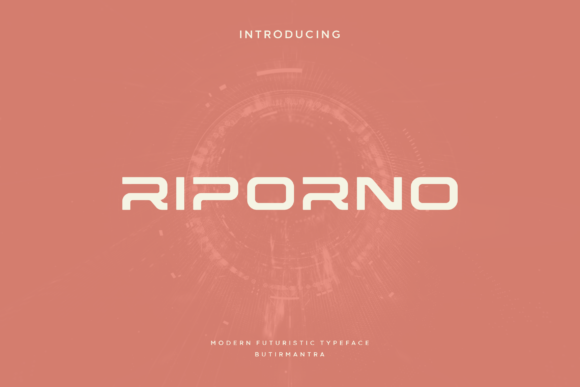
Riporno Font: A Modern Futuristic Typeface for Hi-Tech Logos and More
In the world of typography, fonts play a crucial role in conveying the tone and personality of a brand or design. With the ever-evolving digital landscape, designers are constantly on the lookout for modern and futuristic fonts that can help their creations stand out. One such font that has gained significant attention in recent times is the Riporno Font. In this article, we’ll delve into the features, benefits, and uses of Riporno, a font that is perfect for creating hi-tech logos, science-fiction movie posters, and more.
What is Riporno Font?
Riporno Font is a modern, futuristic typeface designed to cater to the needs of designers looking for a sleek and cutting-edge font. Its unique design elements make it an ideal choice for creating hi-tech logos, science-fiction movie posters, banners, social media graphics, flyers, and more. The font’s futuristic look and feel make it perfect for brands and designs that want to convey a sense of innovation and forward-thinking.
Key Features of Riporno Font
- Modern and Futuristic Design: Riporno Font boasts a sleek and modern design that is perfect for creating futuristic and hi-tech logos.
- Highly Versatile: The font is suitable for a wide range of applications, including science-fiction movie posters, banners, social media graphics, flyers, and more.
- Easy to Read: Despite its futuristic design, Riporno Font is highly legible, making it easy to read and understand.
- Customizable: The font comes with a range of customization options, allowing designers to tailor it to their specific needs.
Uses of Riporno Font
Riporno Font is an incredibly versatile typeface that can be used for a wide range of applications. Some of the most popular uses of the font include:
- Hi-Tech Logos: The font’s futuristic design makes it perfect for creating hi-tech logos that convey innovation and forward-thinking.
- Science-Fiction Movie Posters: Riporno Font is an ideal choice for creating science-fiction movie posters that require a futuristic and otherworldly look.
- Banners and Social Media Graphics: The font’s modern design makes it suitable for creating banners and social media graphics that require a bold and attention-grabbing look.
- Flyers and Brochures: Riporno Font can also be used for creating flyers and brochures that require a modern and futuristic look.
Design Tips for Using Riporno Font
To get the most out of Riporno Font, here are some design tips to keep in mind:
- Pair it with a Simple Background: Riporno Font looks best when paired with a simple background that doesn’t compete with the font’s bold design.
- Experiment with Colors: The font comes in a range of colors, so don’t be afraid to experiment and find the perfect color scheme for your design.
- Use it for Headings: Riporno Font is perfect for creating bold headings that grab attention.
Benefits of Using Riporno Font
There are several benefits to using Riporno Font for your design projects. Some of the most significant advantages include:
- Increased Legibility: The font’s modern design makes it highly legible, even at small sizes.
- Improved Brand Recognition: Riporno Font can help create a consistent brand identity that is recognized and remembered by your target audience.
- Flexibility: The font is suitable for a wide range of applications, making it a versatile addition to any designer’s toolkit.
In conclusion, Riporno Font is a modern, futuristic typeface that is perfect for creating hi-tech logos, science-fiction movie posters, and more. Its unique design elements, versatility, and ease of use make it an ideal choice for designers looking for a bold and attention-grabbing font. Whether you’re looking to create a hi-tech logo or a science-fiction movie poster, Riporno Font is a great choice.